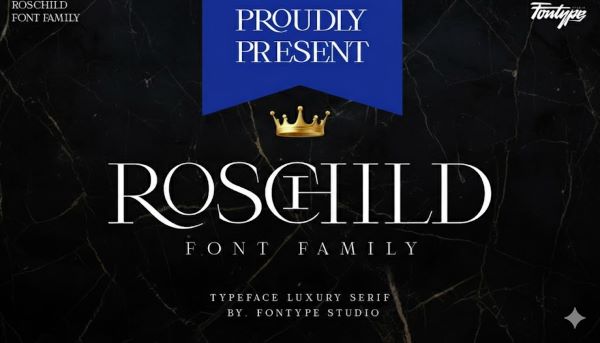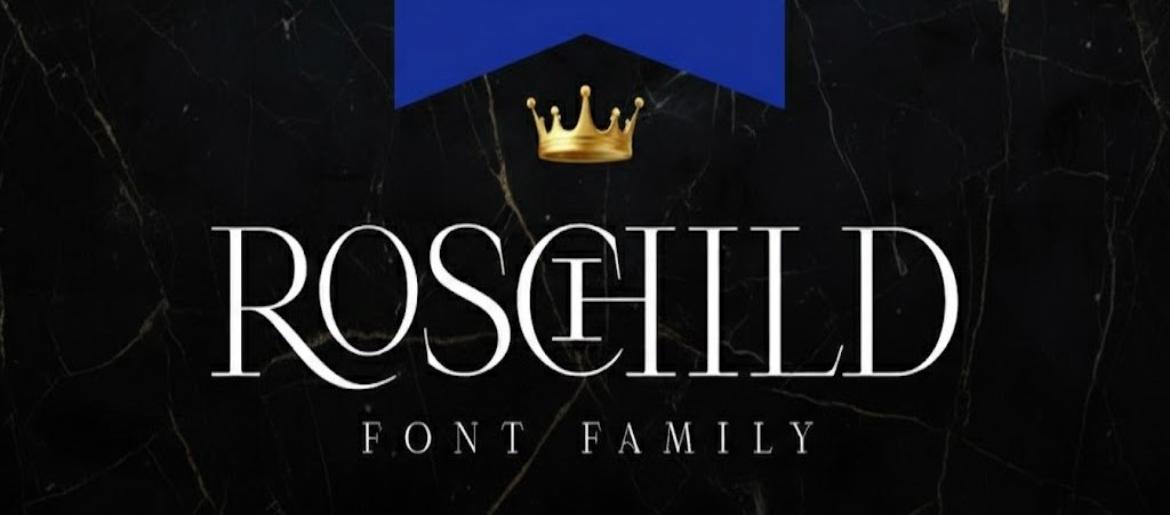
Roschild Font
Roschild is a stunning serif typeface by Ridwan Fadilah that draws deep from the well of ancient calligraphic tradition, weaving in a subtle gothic darkness that gives it an air of timeless, aristocratic refinement. Its intricate letterforms convey luxury and gravitas in equal measure, making it an exceptional choice for high-end branding, elegant invitations, editorial book covers, and any project that demands an immediate sense of heritage and distinction. A typeface that whispers old world prestige. Free for personal and commercial use, supporting 60 languages.